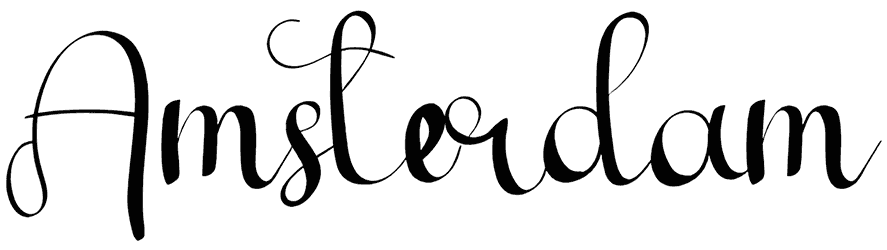
Amsterdam Font
Amsterdam is a fantastic font with a mix of fictional characters, just what you need to create an atmosphere full of mystery and foreboding. This script font evokes the magic and mystery inherent in Wonderland, which is a lovely display for fantasy movie titles and other forms of branding.